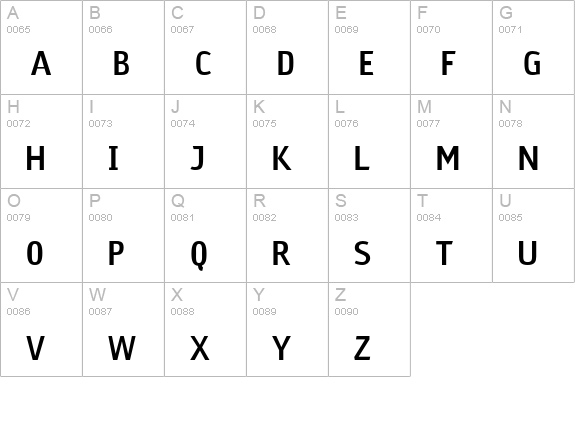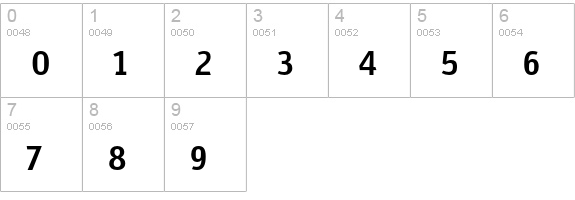
Sodium-Roman Font Details
Introducing Sodium-Roman, a stunning font that effortlessly blends elegance and modernity. With its sleek lines and subtle curves, this typeface is perfect for adding a touch of sophistication to any design project. Sodium-Roman is not only visually appealing, but it also offers a sense of versatility and adaptability. Whether you're working on a professional logo, a captivating headline, or even a stylish wedding invitation, this font will effortlessly enhance the overall aesthetic. One of the best features of Sodium-Roman is that it is completely free to download. Yes, you read that right! This font is freely available at FontsMarket.com, making it easily accessible to designers and creative individuals alike. Say goodbye to spending excessive amounts of money on high-quality fonts, as Sodium-Roman allows you to add a touch of class to your creations without breaking the bank. When using Sodium-Roman, you'll also notice its exceptional legibility, ensuring that your message gets across loud and clear. Its clean and crisp letterforms are designed to keep the reader engaged while maintaining a sense of professionalism and elegance. With a wide range of weights and styles available, Sodium-Roman offers endless possibilities for your creative projects. Whether you prefer a light and airy look or a bold and impactful statement, this font has you covered. So why wait? Enhance your designs today with Sodium-Roman, the font that combines timeless beauty with effortless accessibility. Download it for free at FontsMarket.com and unlock a world of creative potential.